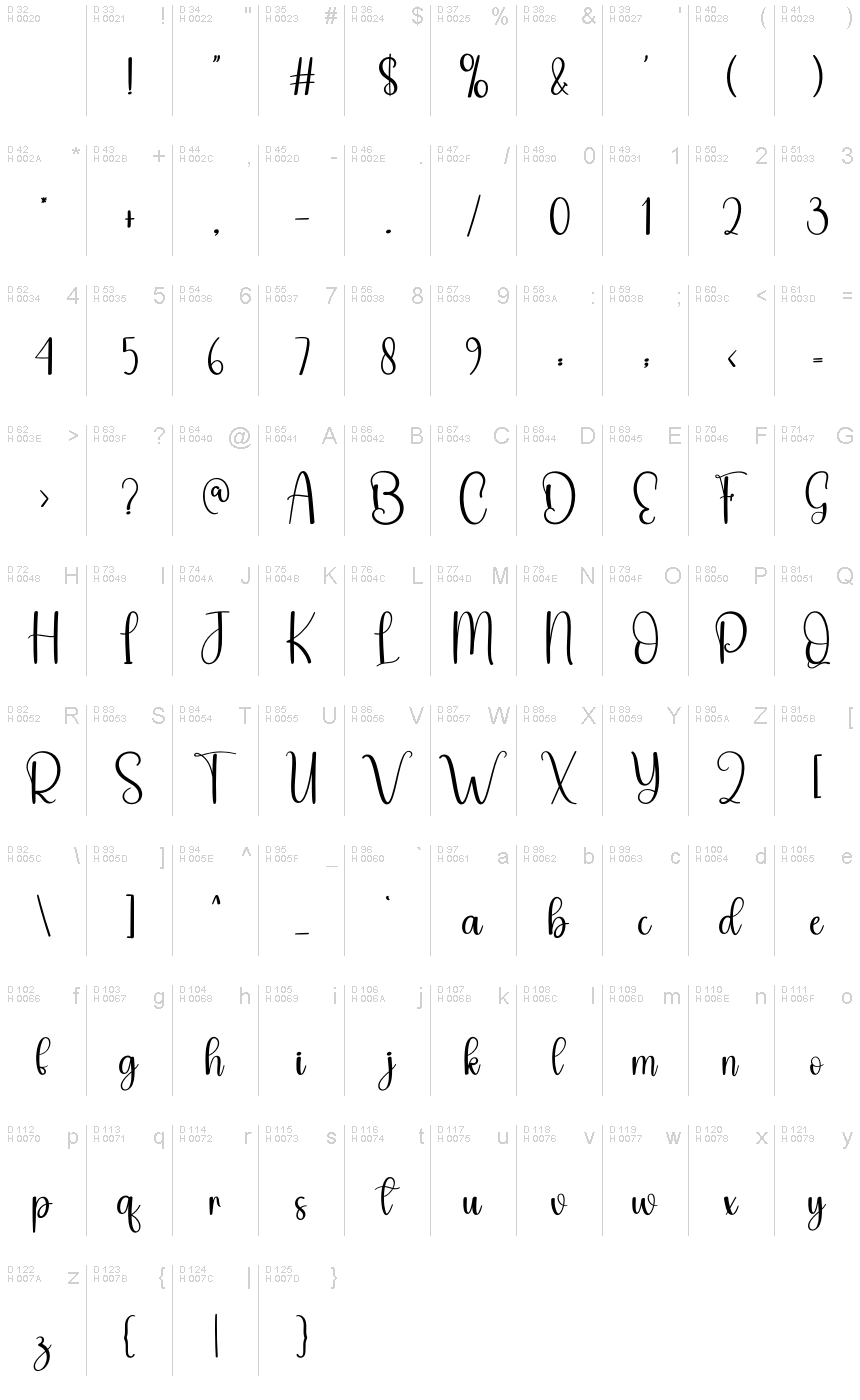
Soybean
Soybean is a captivating handwritten font designed by Andi Moz. Its playful yet refined strokes evoke a sense of organic fluidity, lending a warm and inviting aesthetic to any design.
The varied line weights and natural-looking curves create a distinctive, handcrafted feel, perfect for adding a personal touch to branding, packaging, or editorial layouts. Soybean's versatility shines through, seamlessly blending traditional calligraphic elements with a modern sensibility.
This font's versatility makes it a compelling choice for a wide range of applications, from vibrant logotypes to evocative header text.